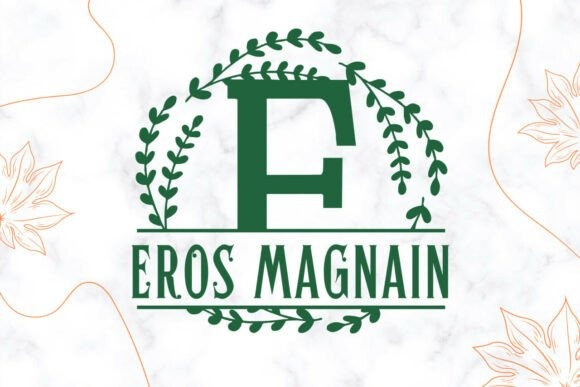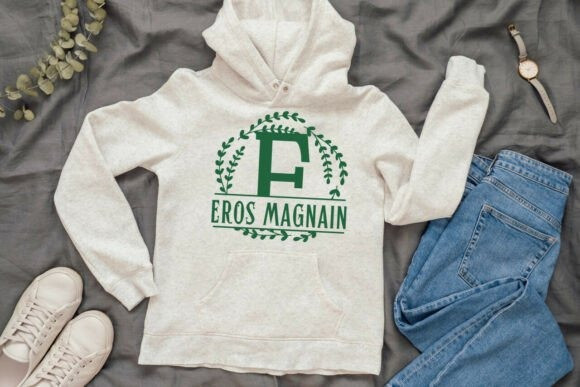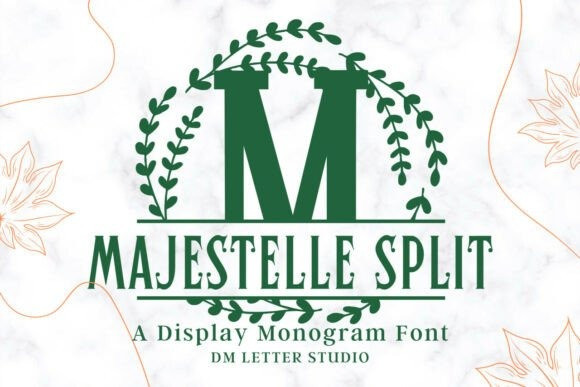
Majestelle Split Monogram Font turns initials into custom nameplates in seconds.The letterforms feel elegant and clear. The center split leaves space for names, dates, or short words. Because spacing stays balanced, results look polished with little effort. Use it for wedding gifts, family signs, door hangers, tumblers, ornaments, and boutique packaging. Moreover, this Majestelle Split Monogram Font pairs beautifully with clean sans or light scripts, so every layout stays readable and calm.
Where this Majestelle Split Monogram Font shines
Set a single initial and place the family name inside the split. Next, try a couple of names for keepsakes or venue names for signage. Since proportions favor clarity, designs scale from large wall art to tiny tags. As a result, Majestelle Split Monogram Font works perfectly for Cricut, Glowforge, lasers, and vinyl projects.
Fast setup, premium results
Consequently, you can reuse one base template across many products and seasons. Simply change the letter and name, export, and you are ready to sell. Finally, batch designs for weddings, housewarmings, and holiday markets to save serious time.
Design tips for Majestelle Split Monogram
Keep the main initial large to showcase the refined structure. Place the split line at the center or slightly low for balance. Meanwhile, pick a simple secondary font for the text inside the split. Because the look is airy, metallic accents and natural textures add instant value. Think champagne foil on blush card or matte black on walnut wood. However, keep names short so everything remains readable at smaller sizes.
Why makers choose this Split Monogram Font
You want fast personalization that still looks high-end. Majestelle Split Monogram Font delivers.
It helps you craft custom gifts, signs, and décor in minutes while keeping your shop style consistent across many product types. Therefore, one font can anchor an entire line of name-ready pieces.